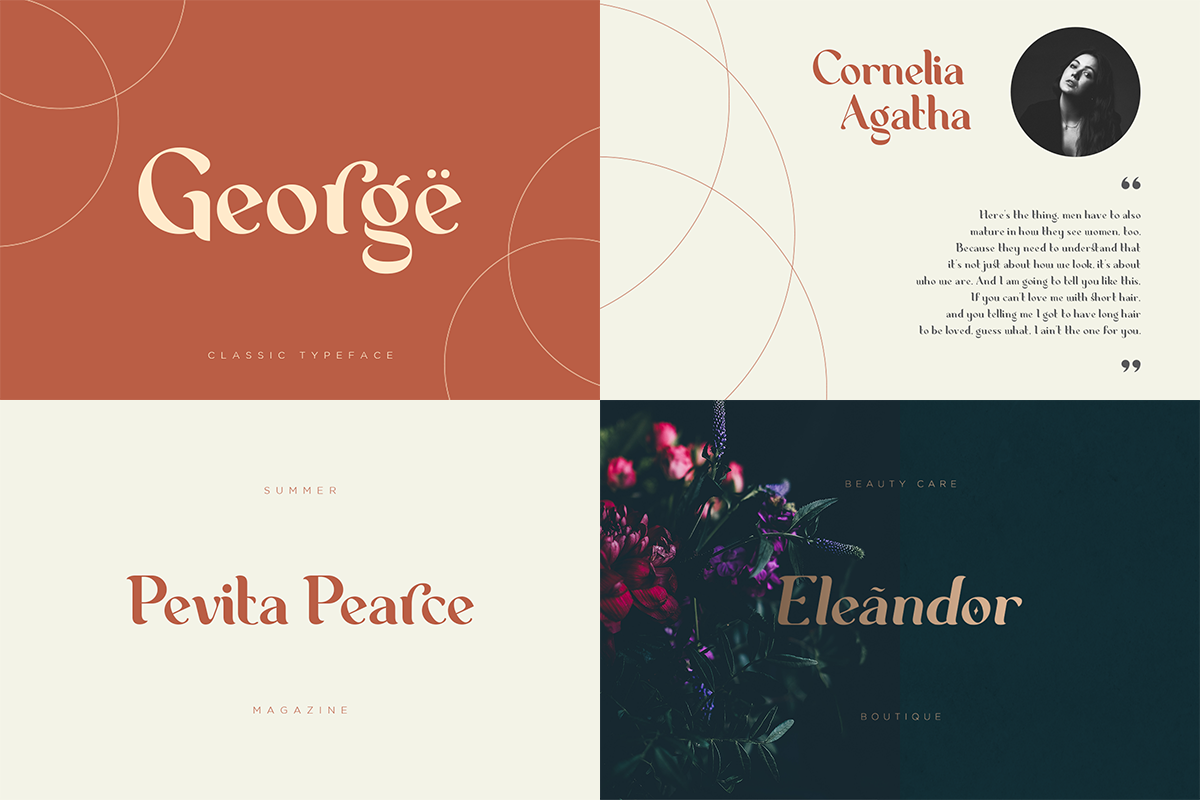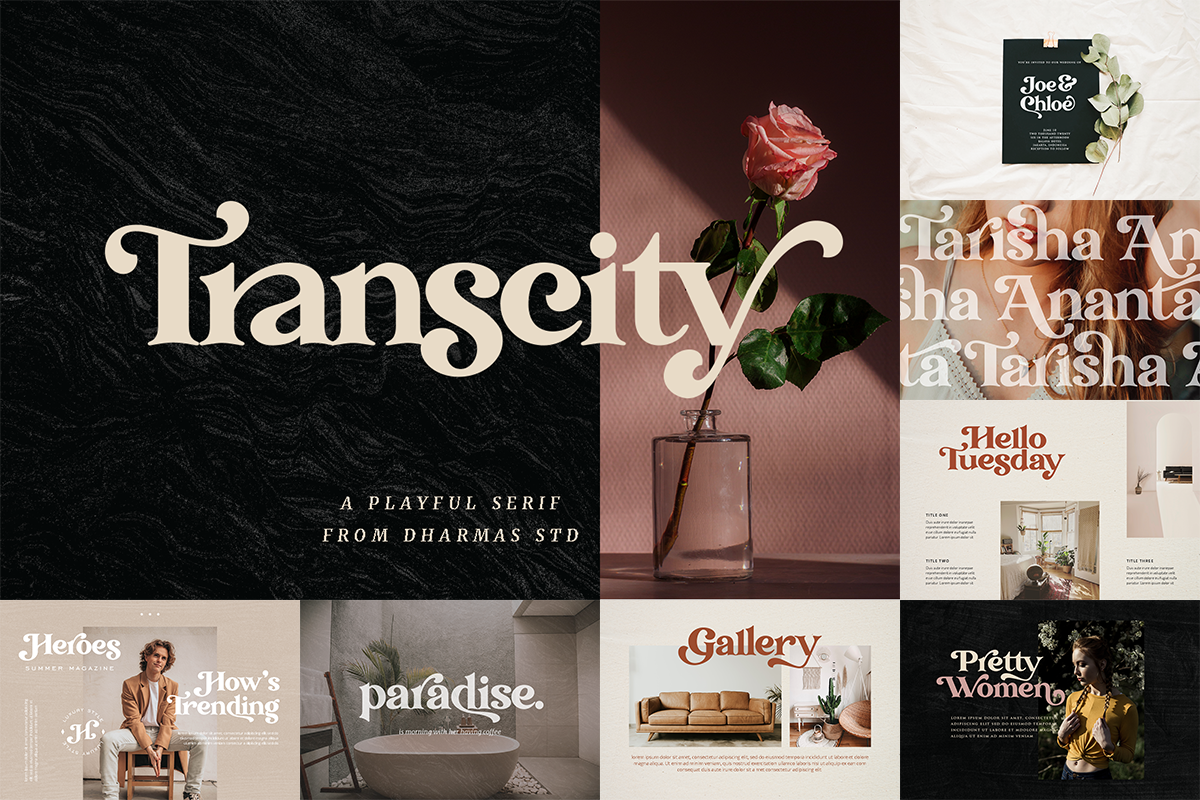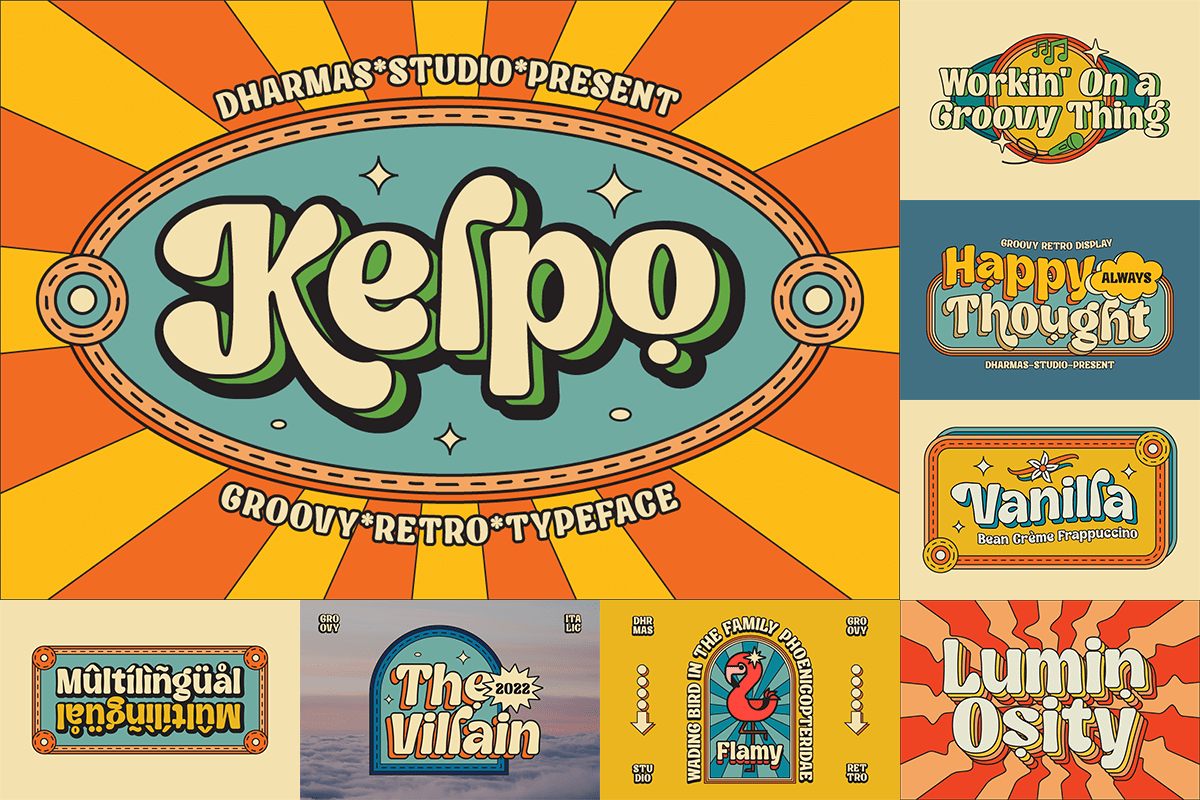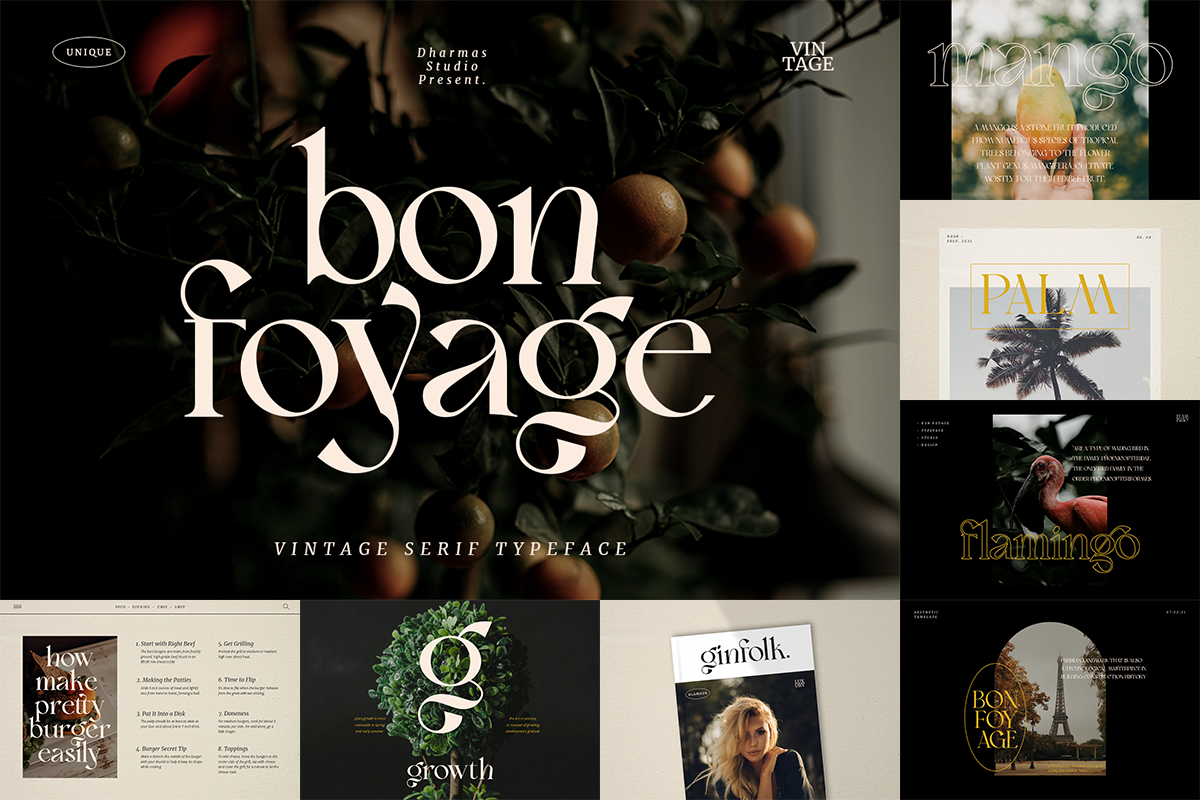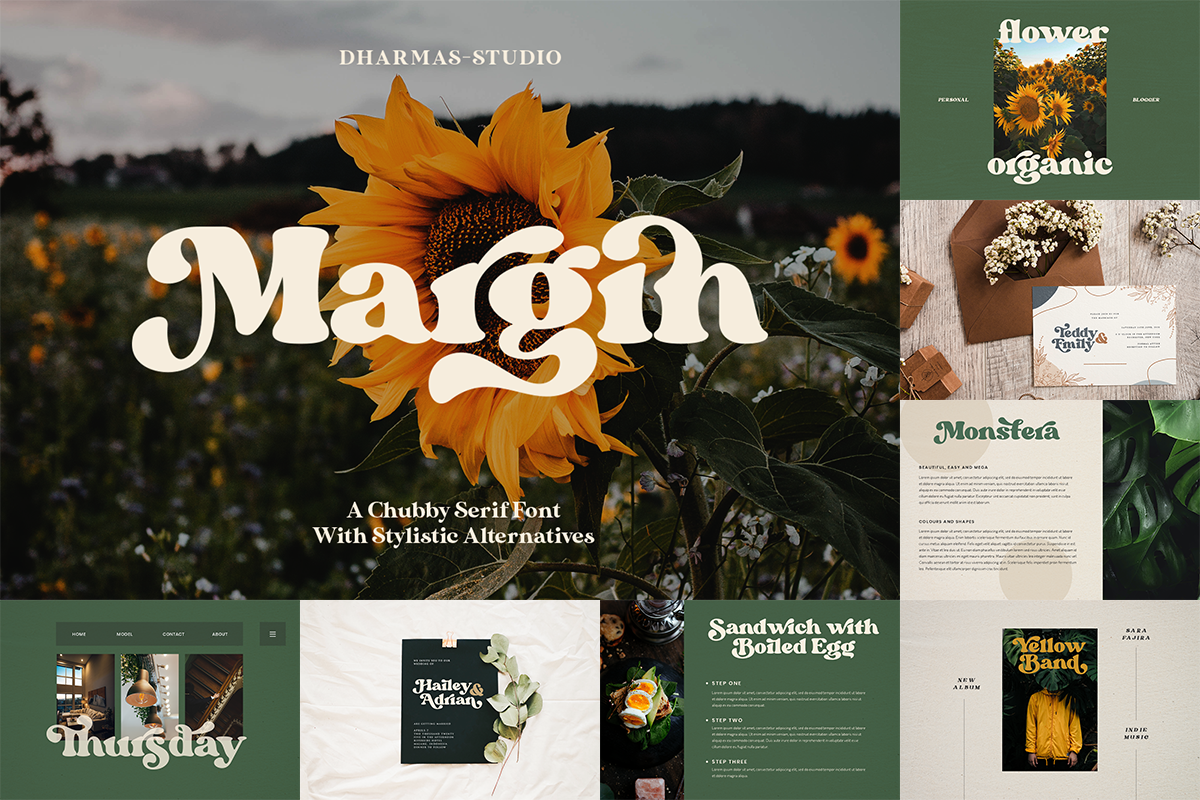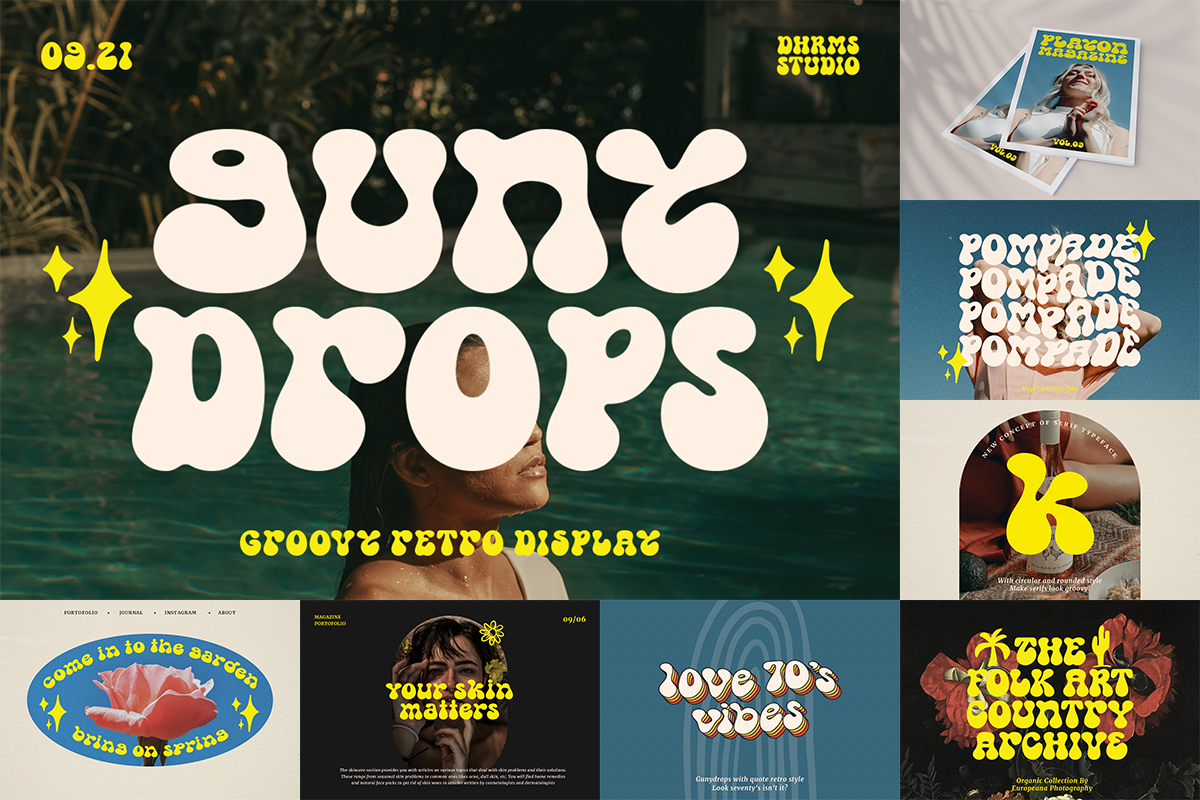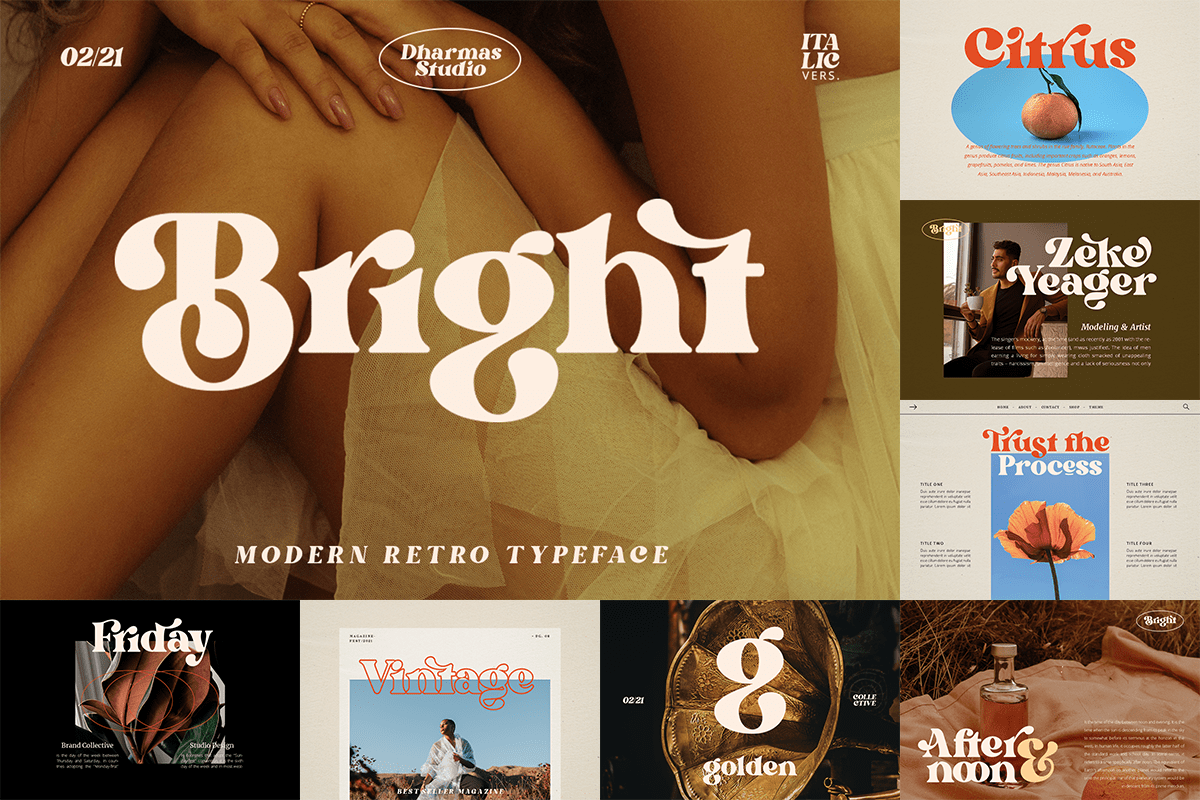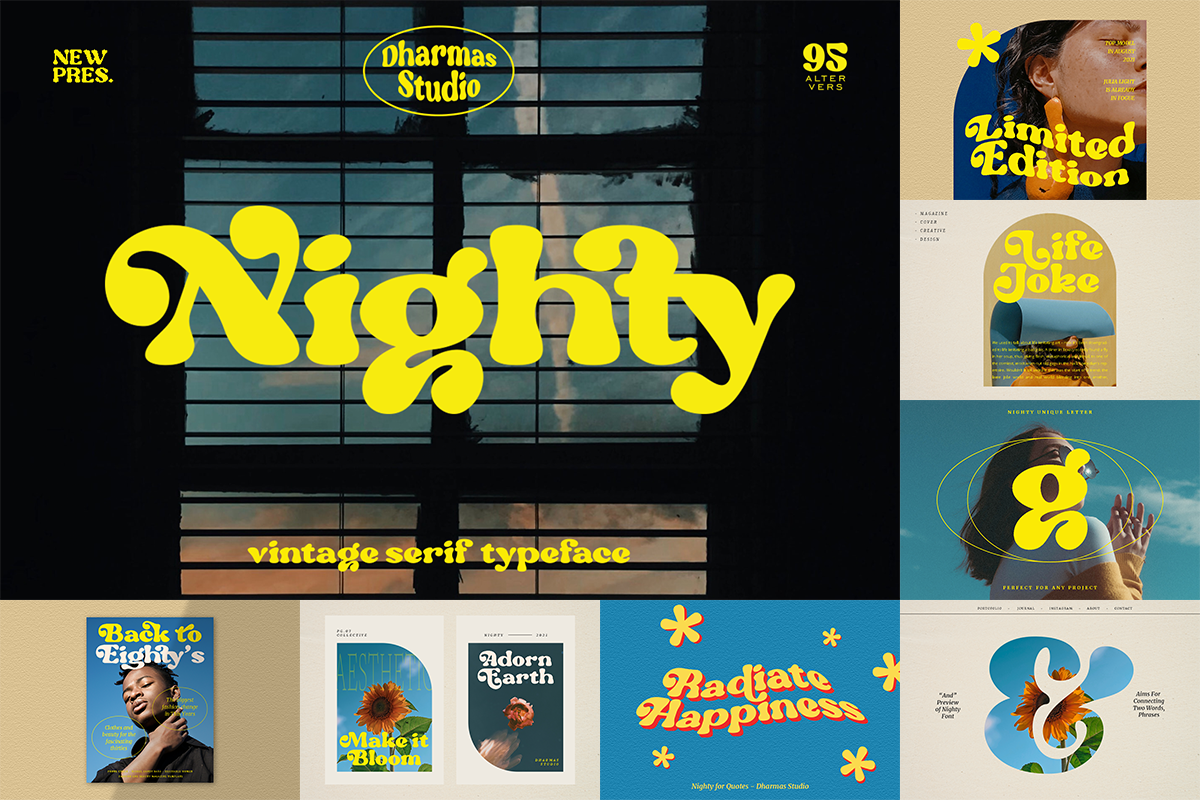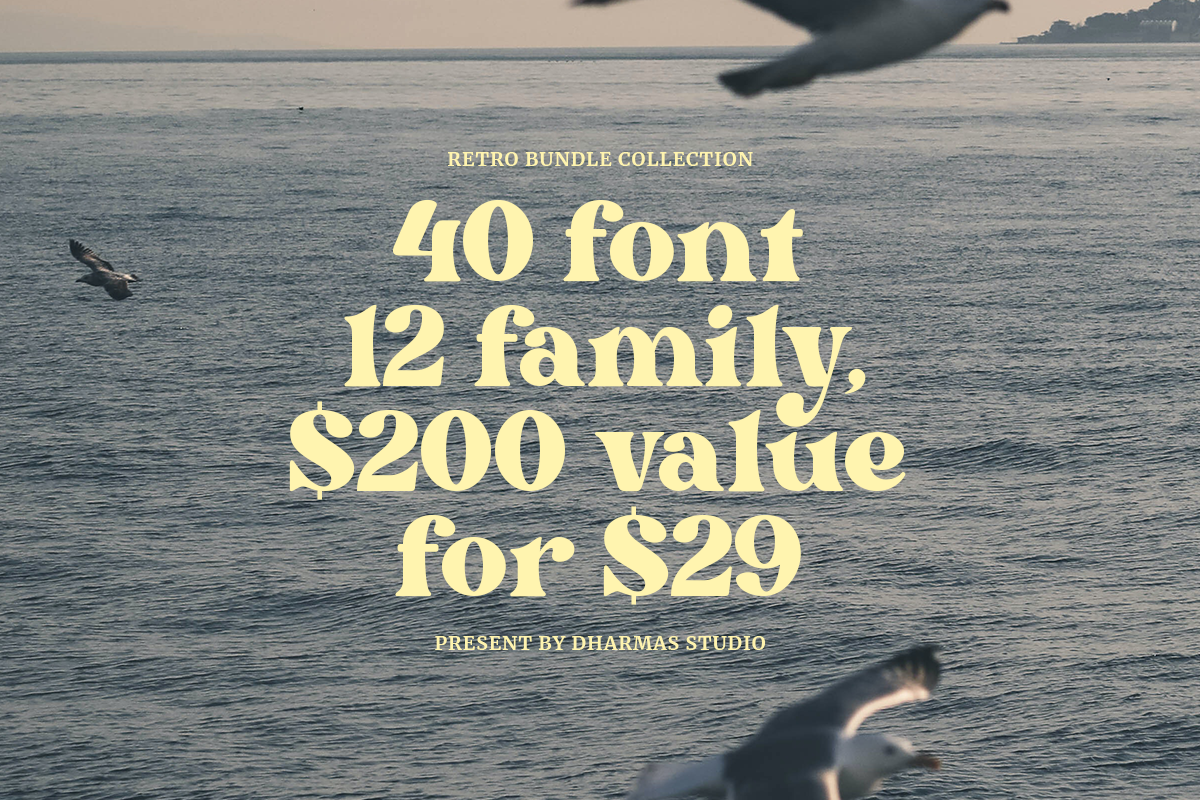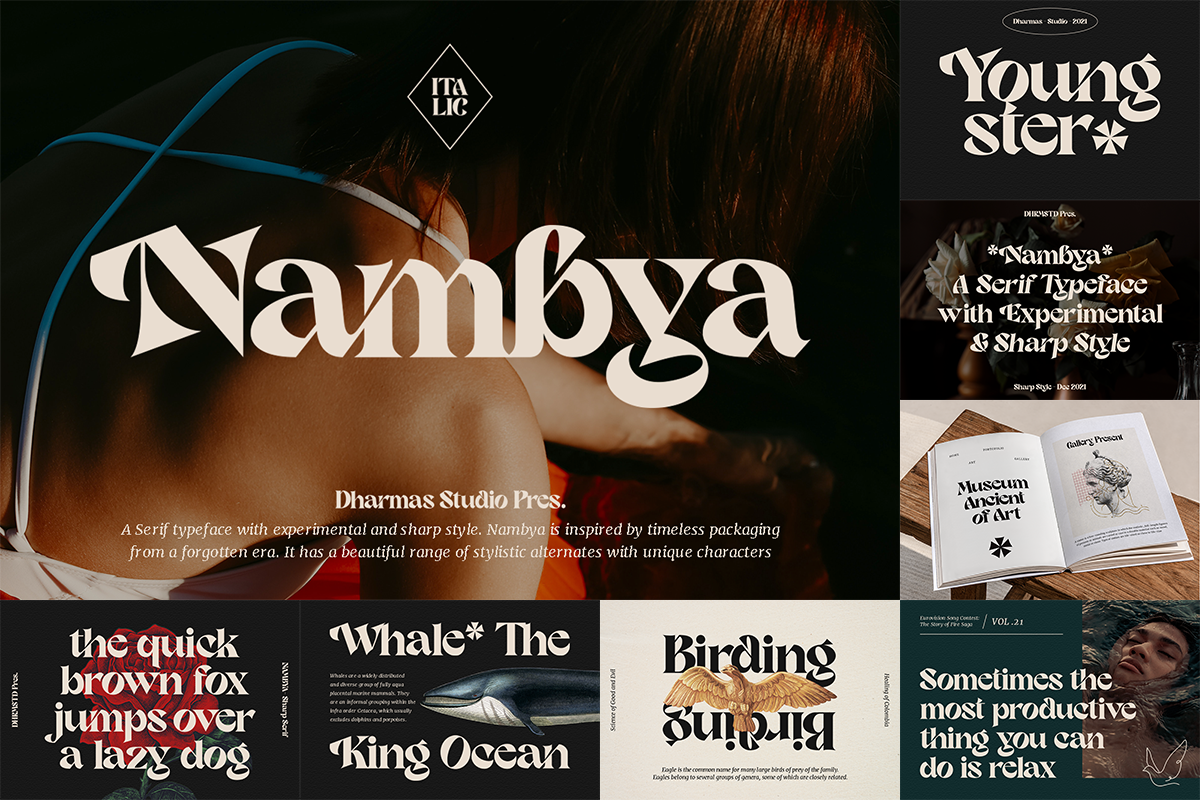
THE BEST OFFER BUNDLE IN OUR SHOP IS FINALLY HERE! A lot of fonts for your projects are in one place. With this Retro Collection, you can design stylish logotypes for your clients, create gorgeous branding, logos, blog, social media, wedding invitations, posters, magazines, and others. This bundle contains 40 fonts, with a total 12 families inside. A normal price of $200 you can get only $29!
- This bundle includes our top and latest fonts!
- 40 fonts in 12 unique retro typeface packed together.
- Includes unique serif fonts, sans serif fonts, display, script, and header fonts with a retro, modern, stylish look.
BEST-SELLING FONTS IN THIS BUNDLE: